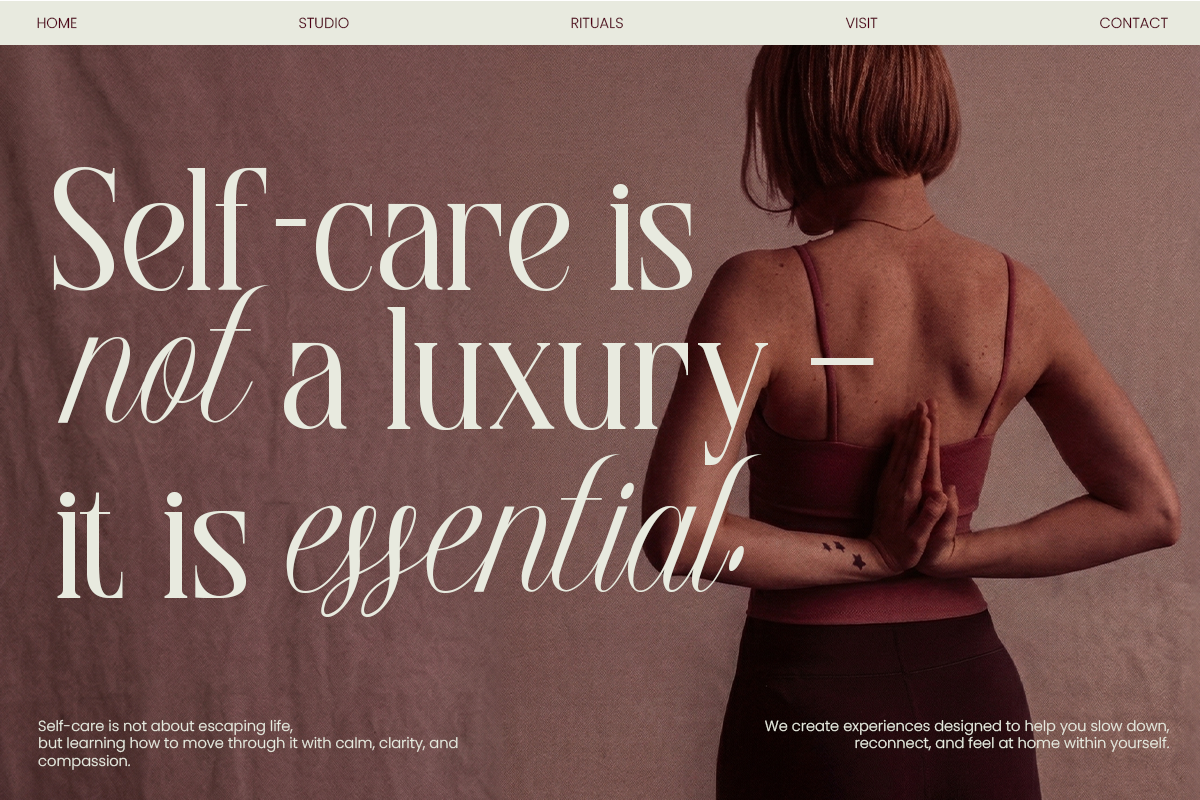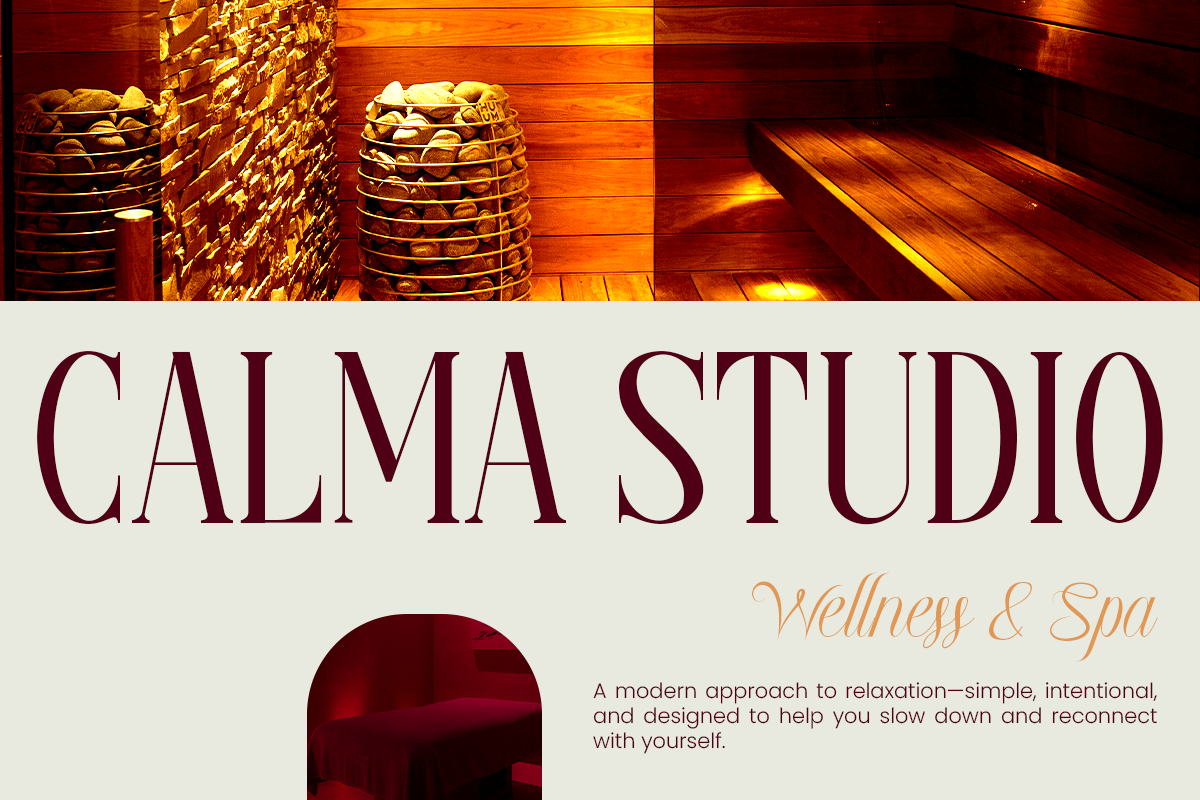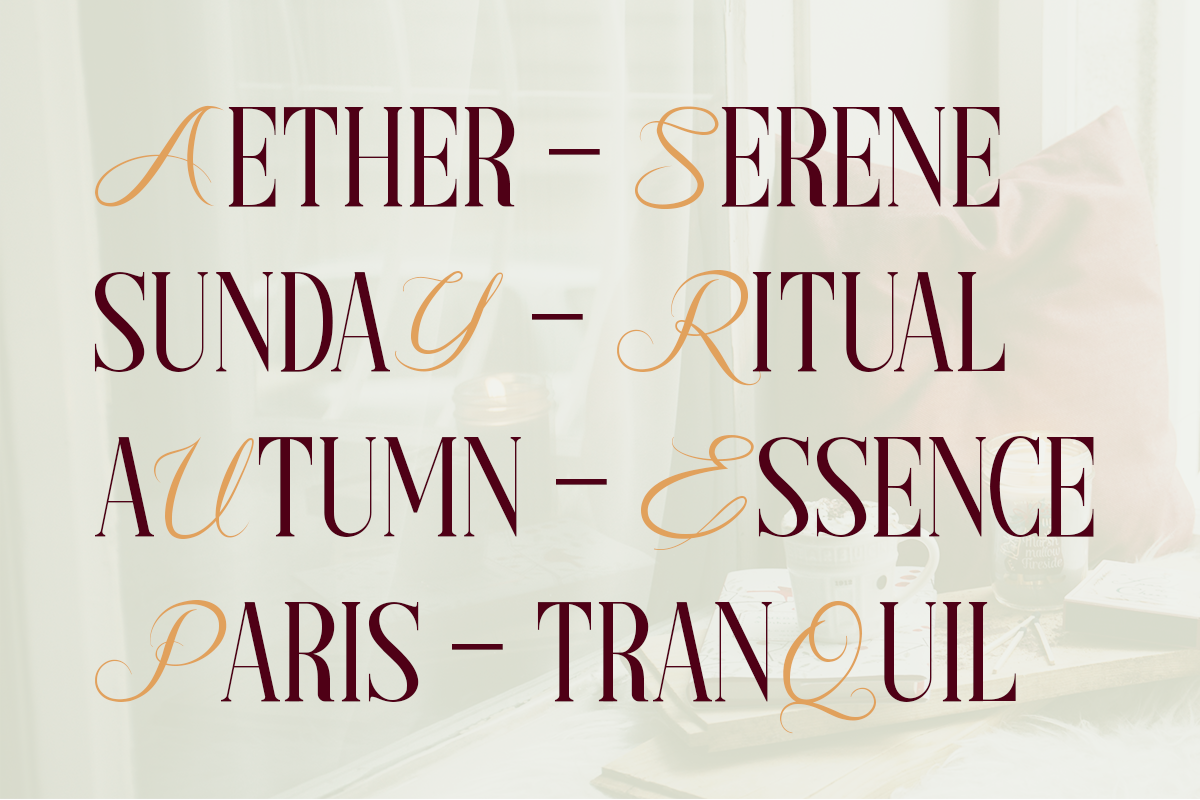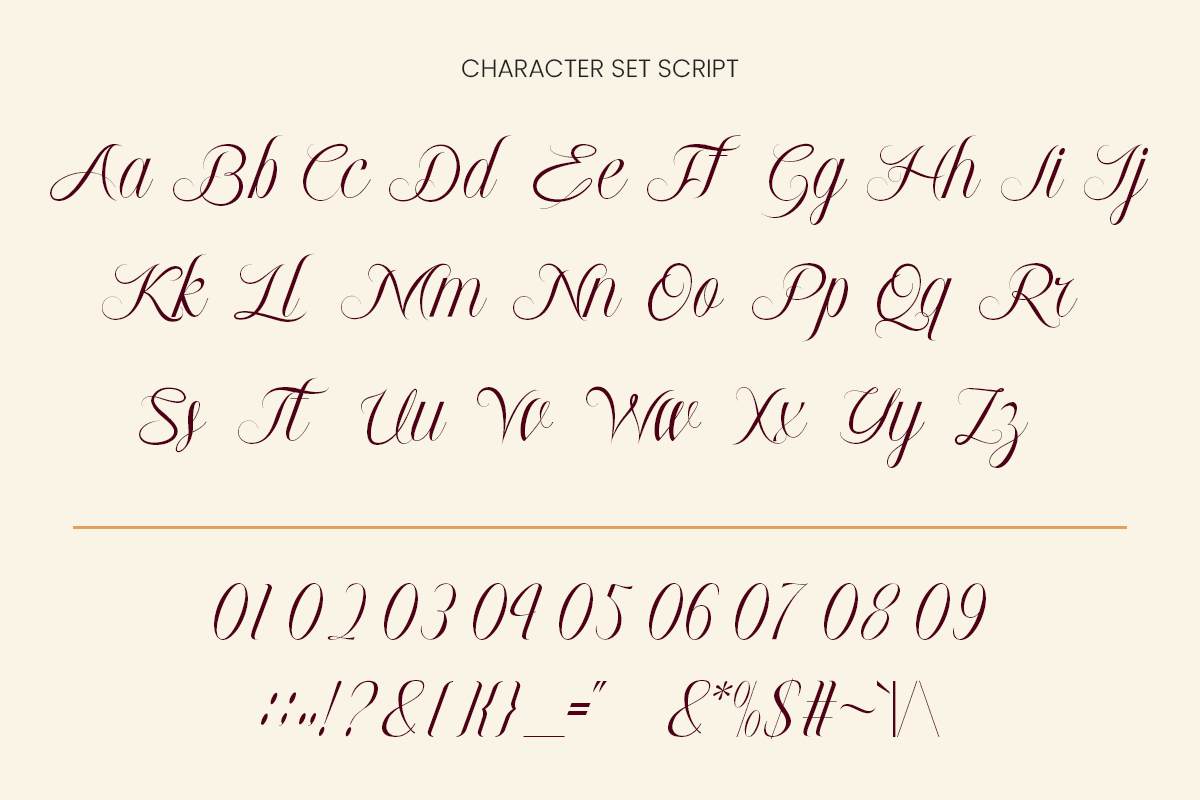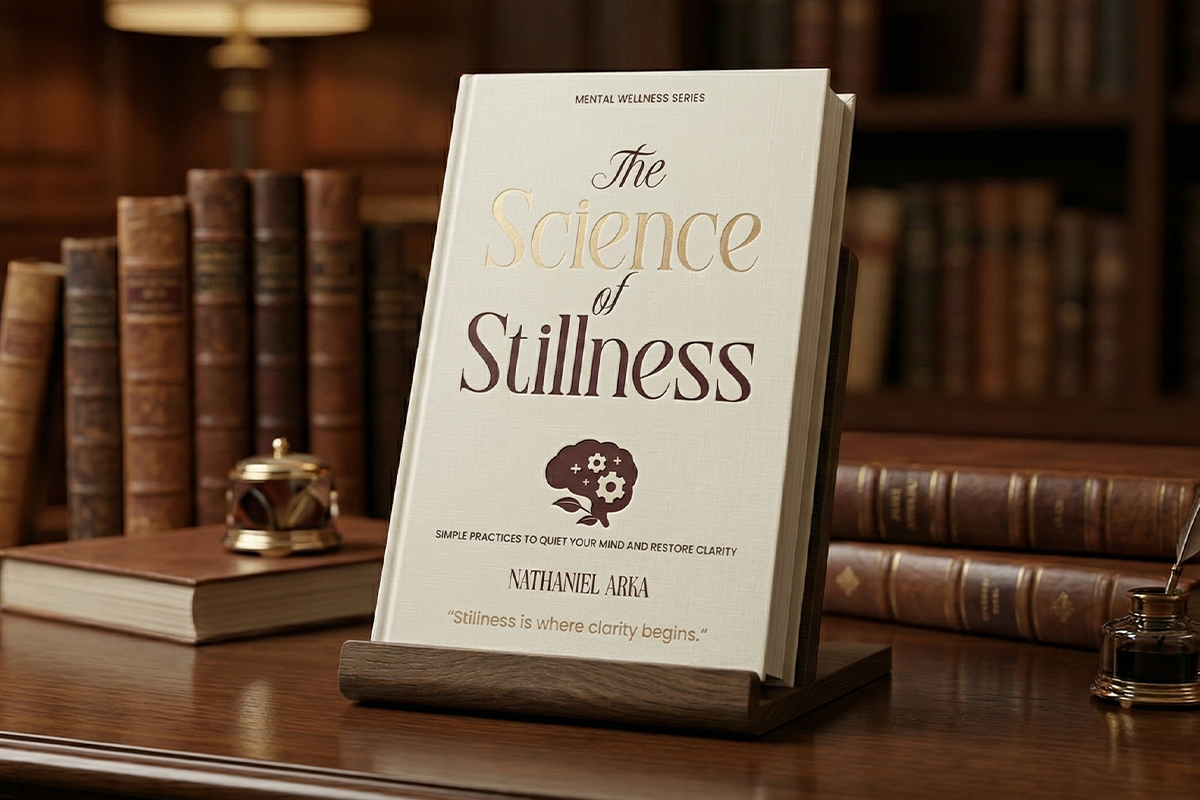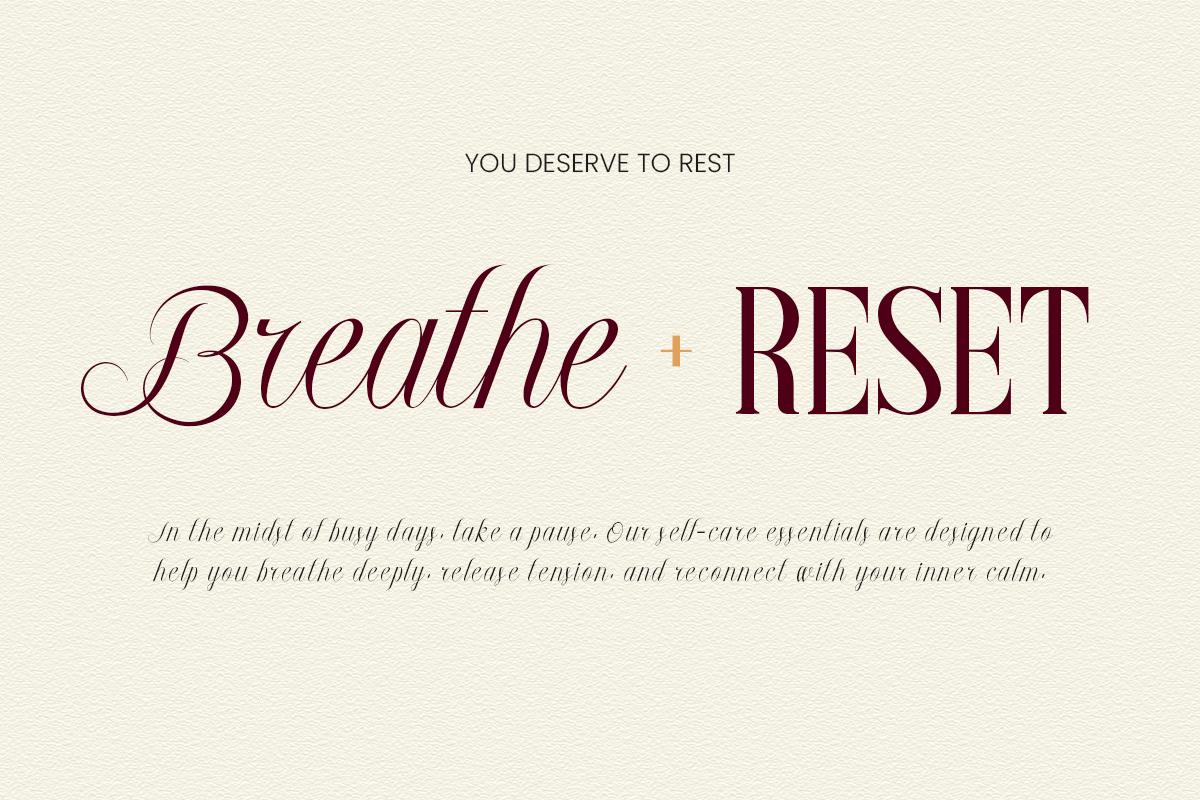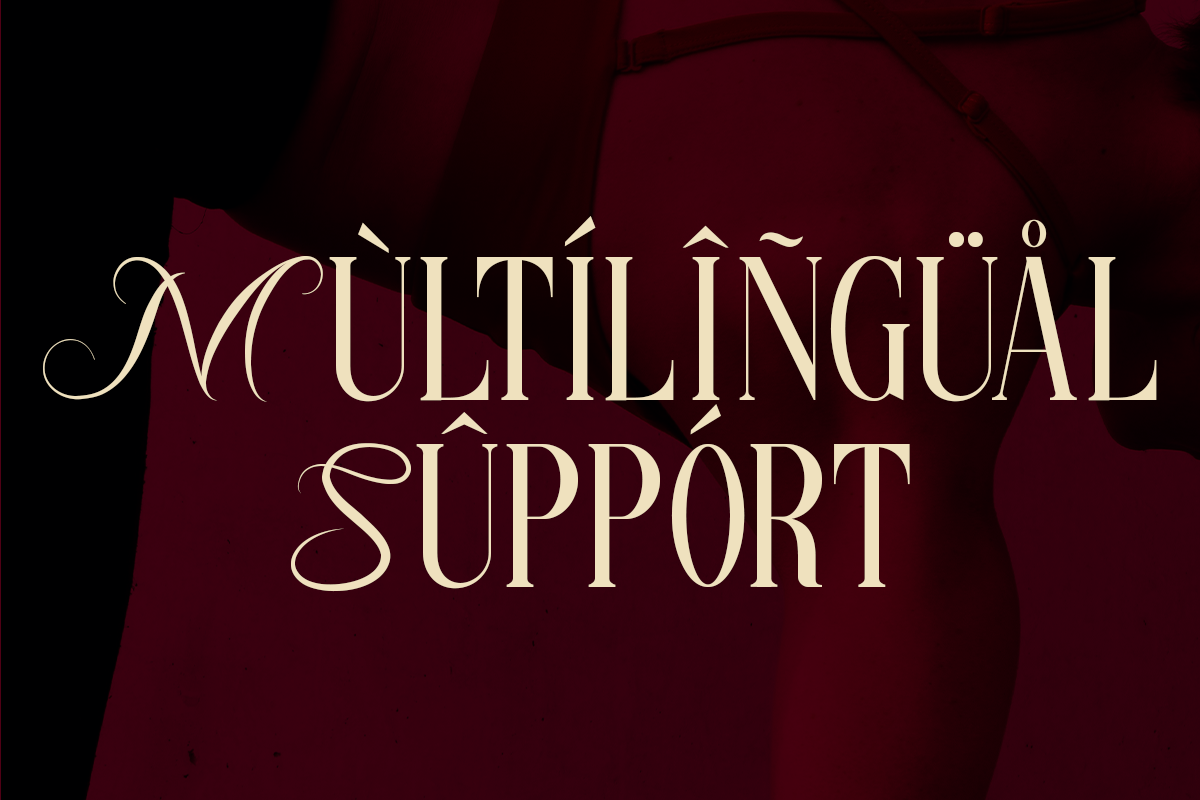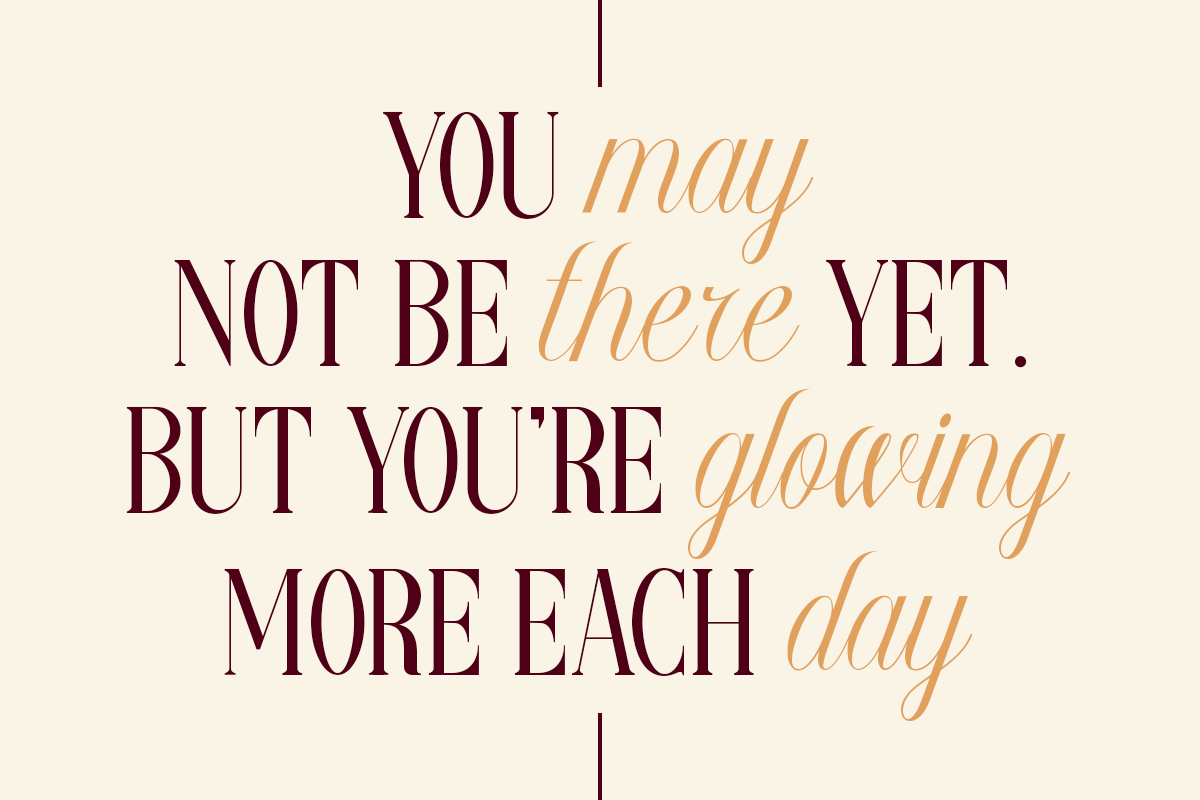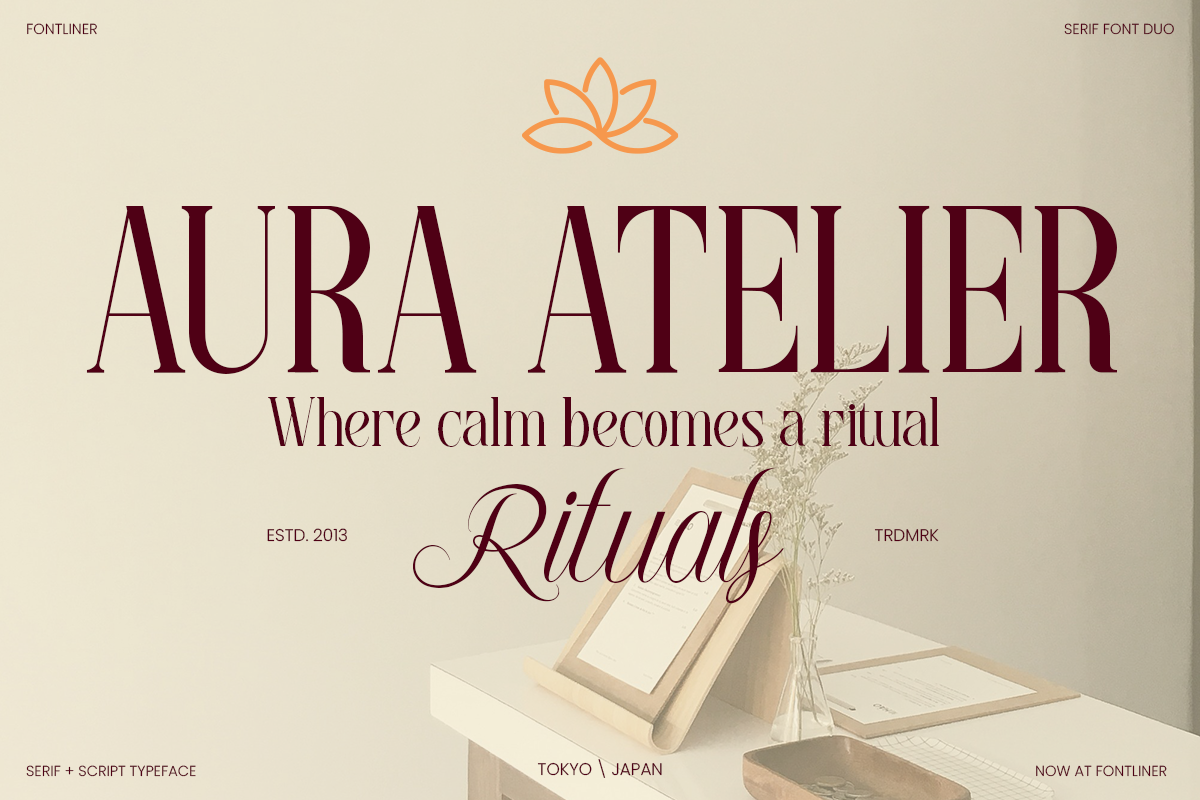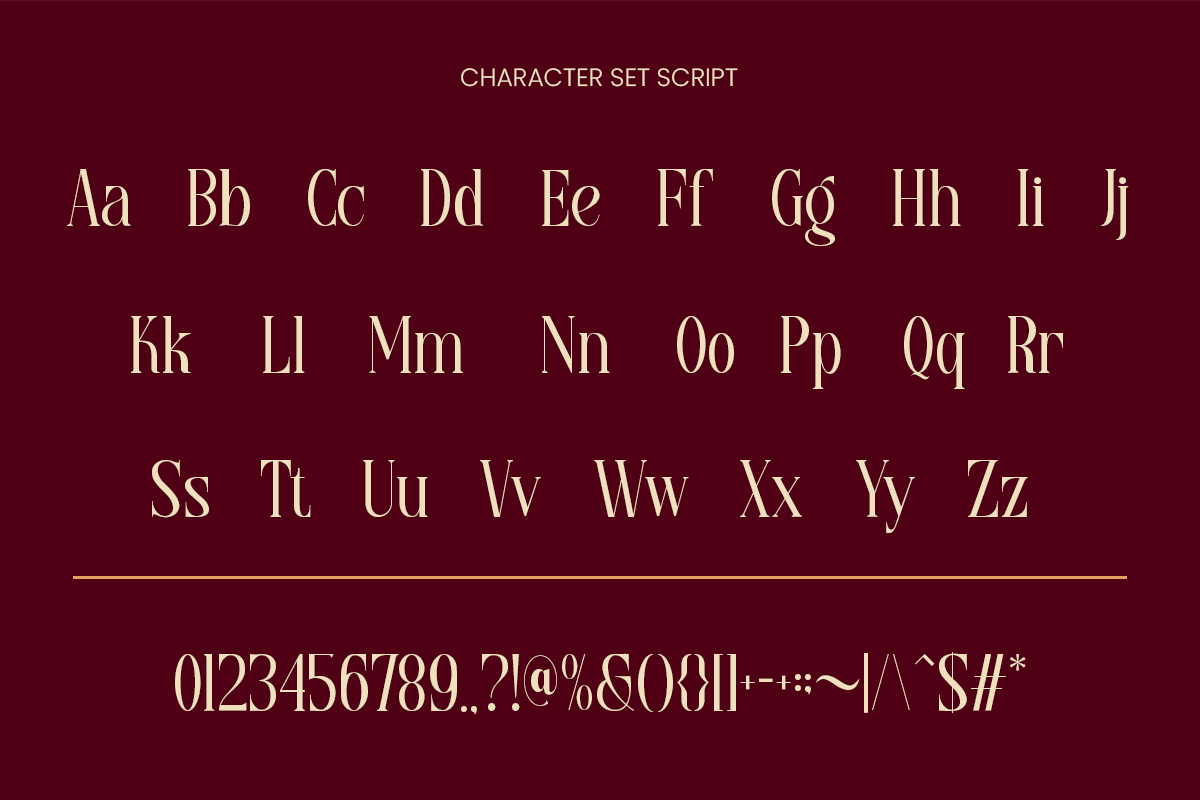
Georgia Praline - Serif Font Duo
Georgia Praline is a sophisticated serif font duo that blends classic elegance with a graceful script touch. Designed to create a harmonious pairing, this typeface combines a refined serif with a flowing handwritten style, resulting in a timeless and luxurious visual identity. The contrast between structure and fluidity gives it a distinctive charm that feels both modern and classic.
Perfect for branding, wedding designs, editorial layouts, and premium packaging, Georgia Praline brings a romantic and high-end aesthetic to any project. The serif provides clarity and authority, while the script adds personality and softness—making it ideal for logos, invitations, and stylish typography compositions.
With its versatile duo system, Georgia Praline allows designers to explore creative combinations effortlessly. Whether used together or separately, it ensures a cohesive and elegant look, making it a powerful choice for projects that require both sophistication and artistic flair.
- Symbol, Number and Multilingual Support